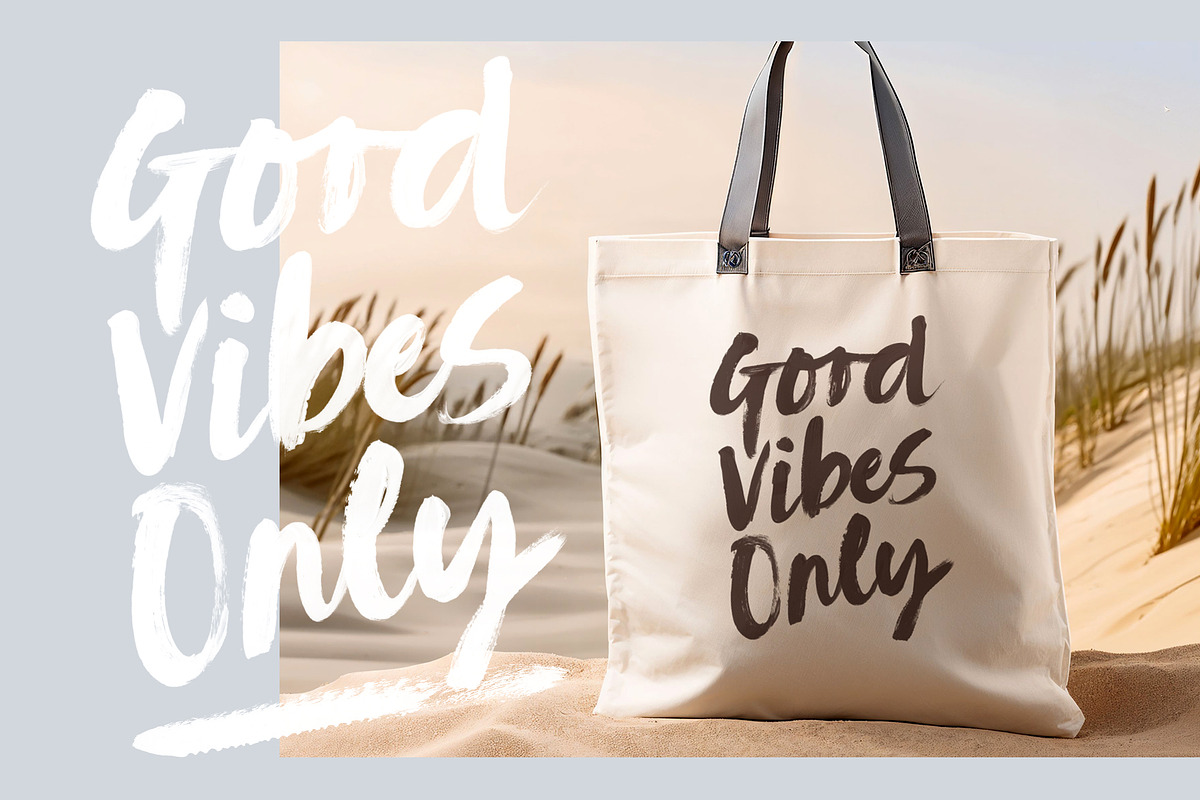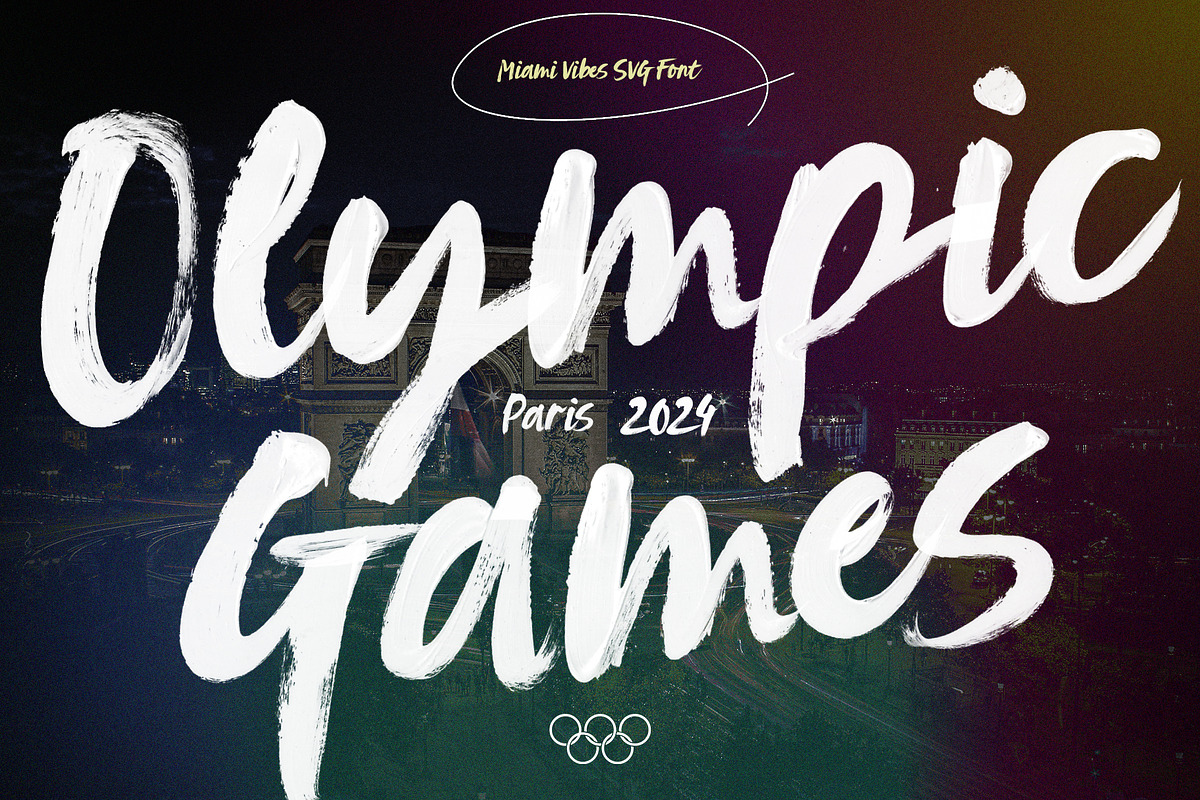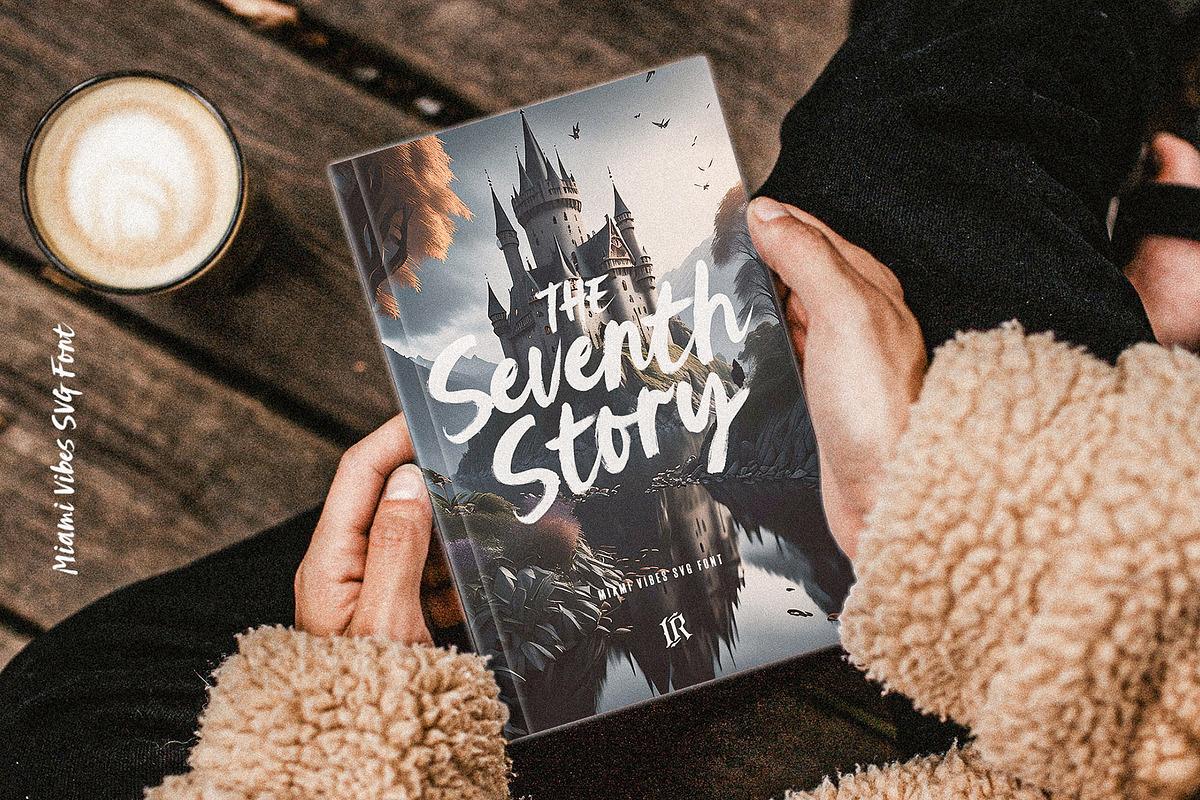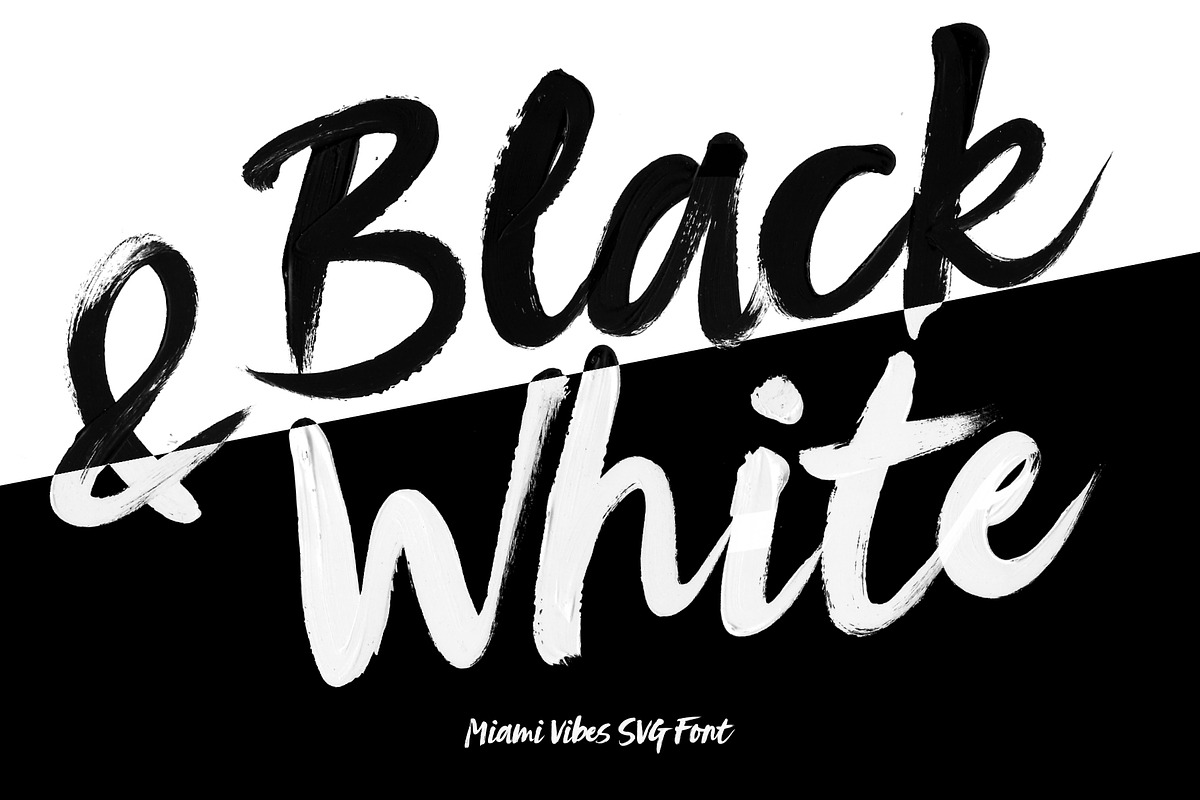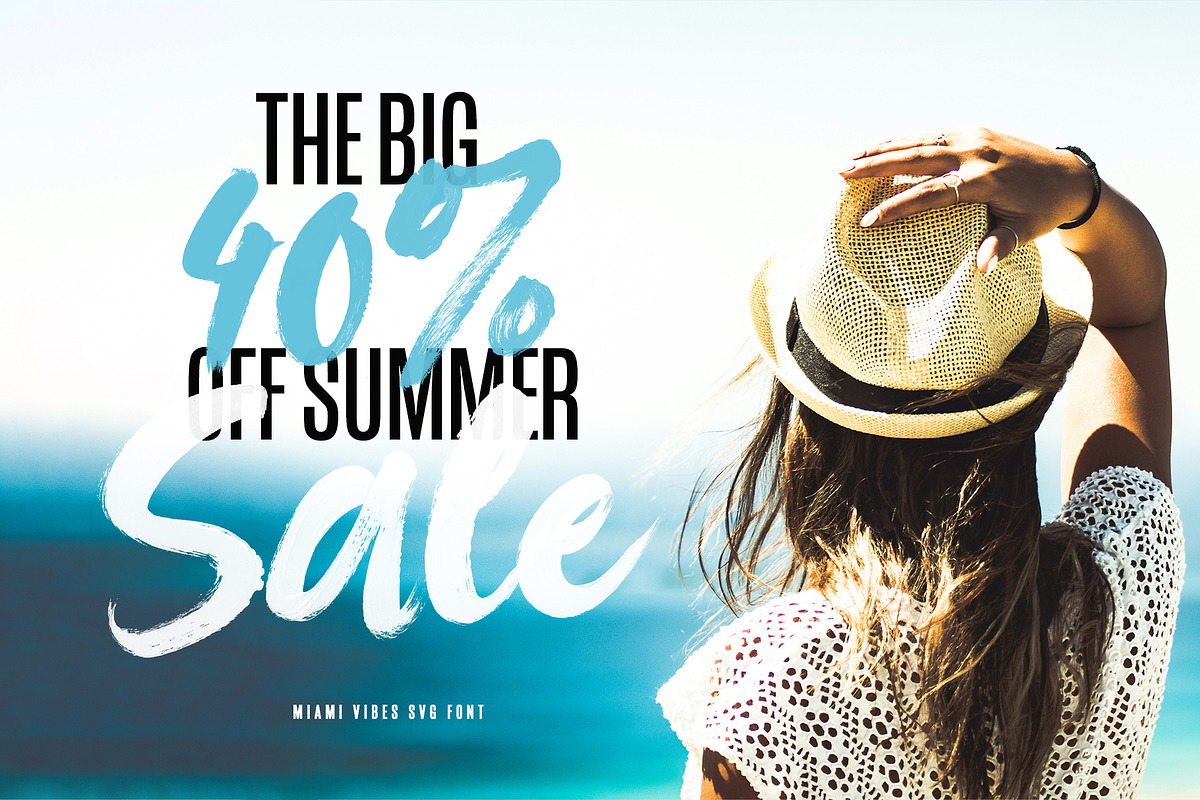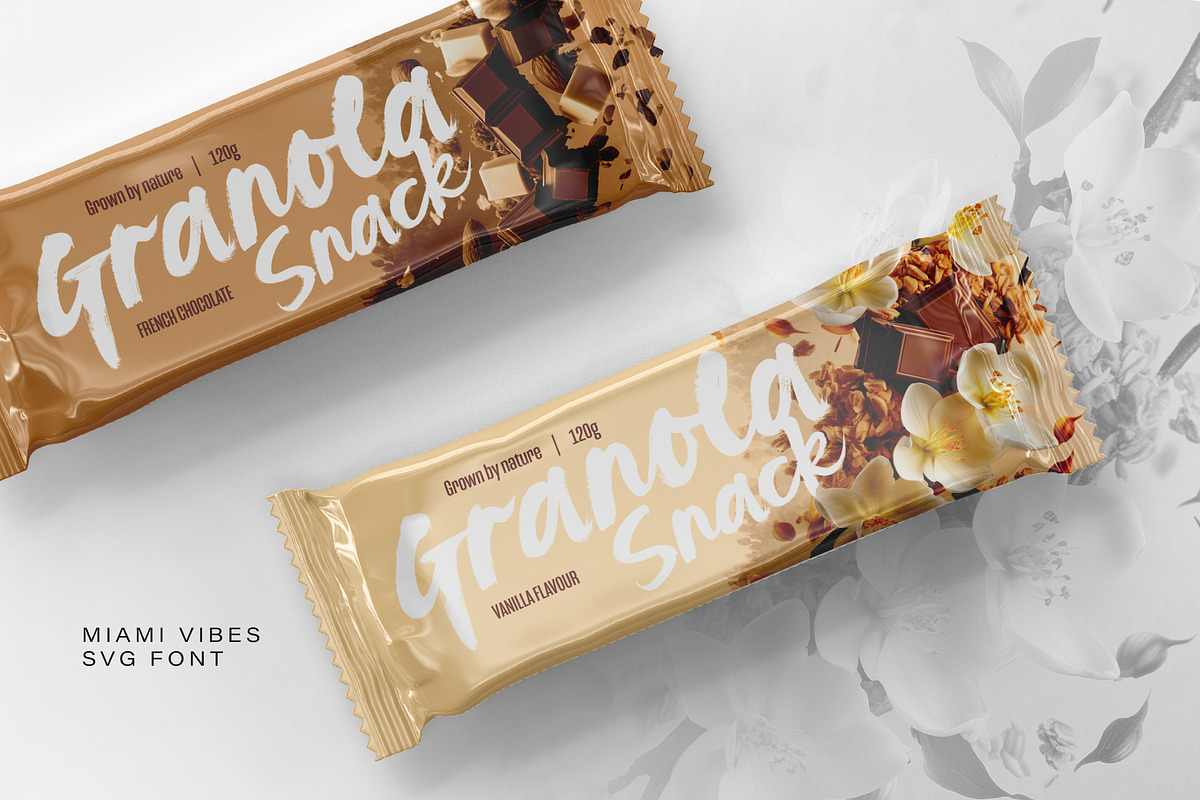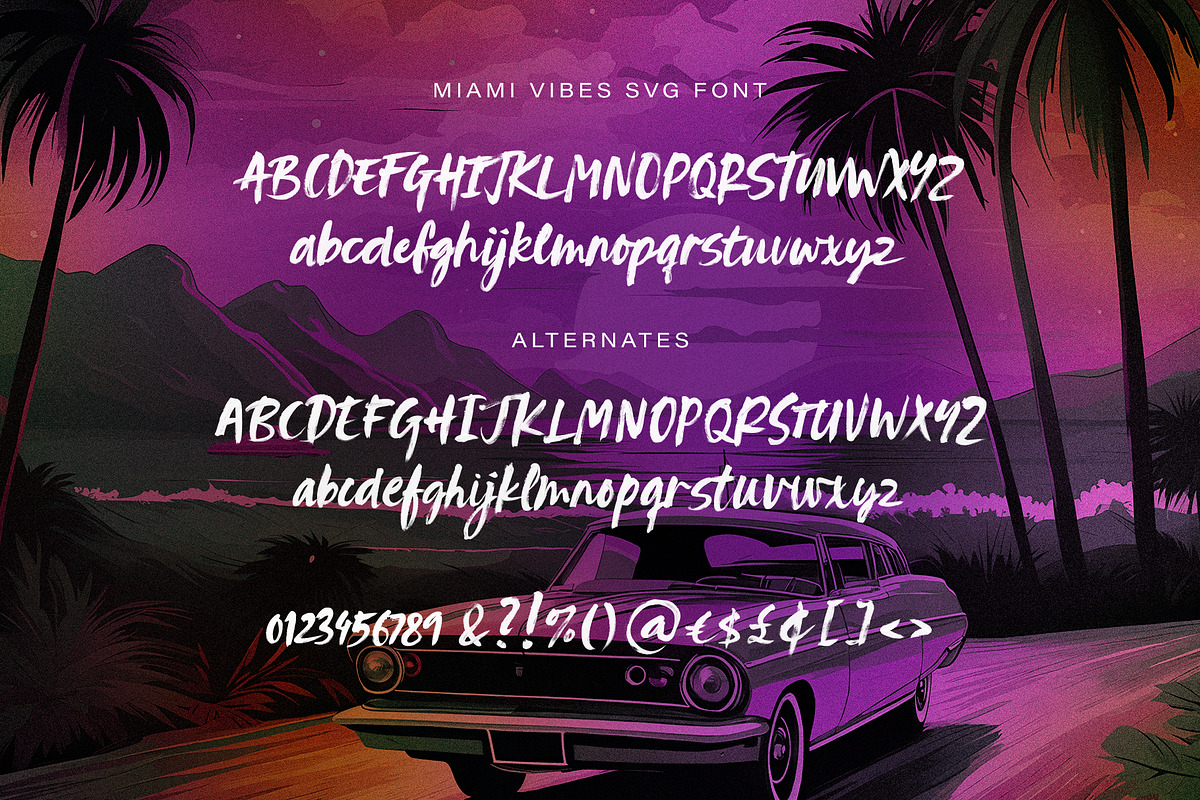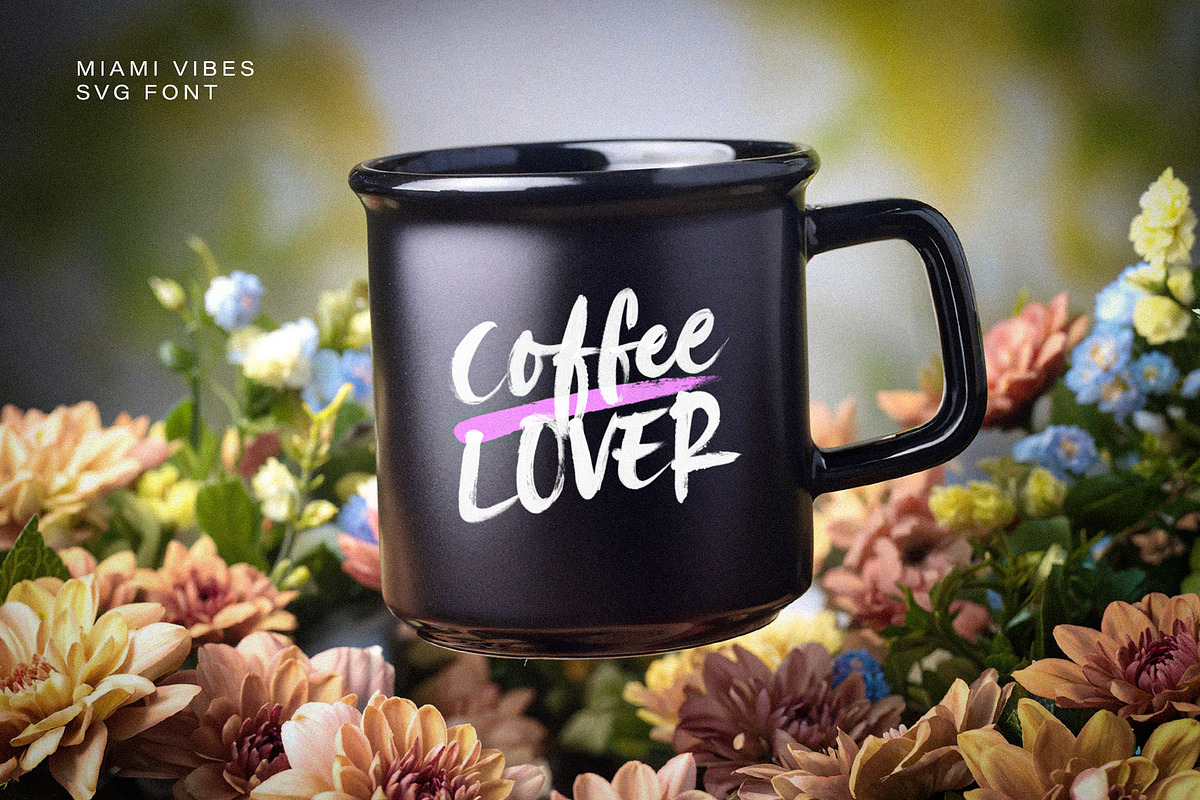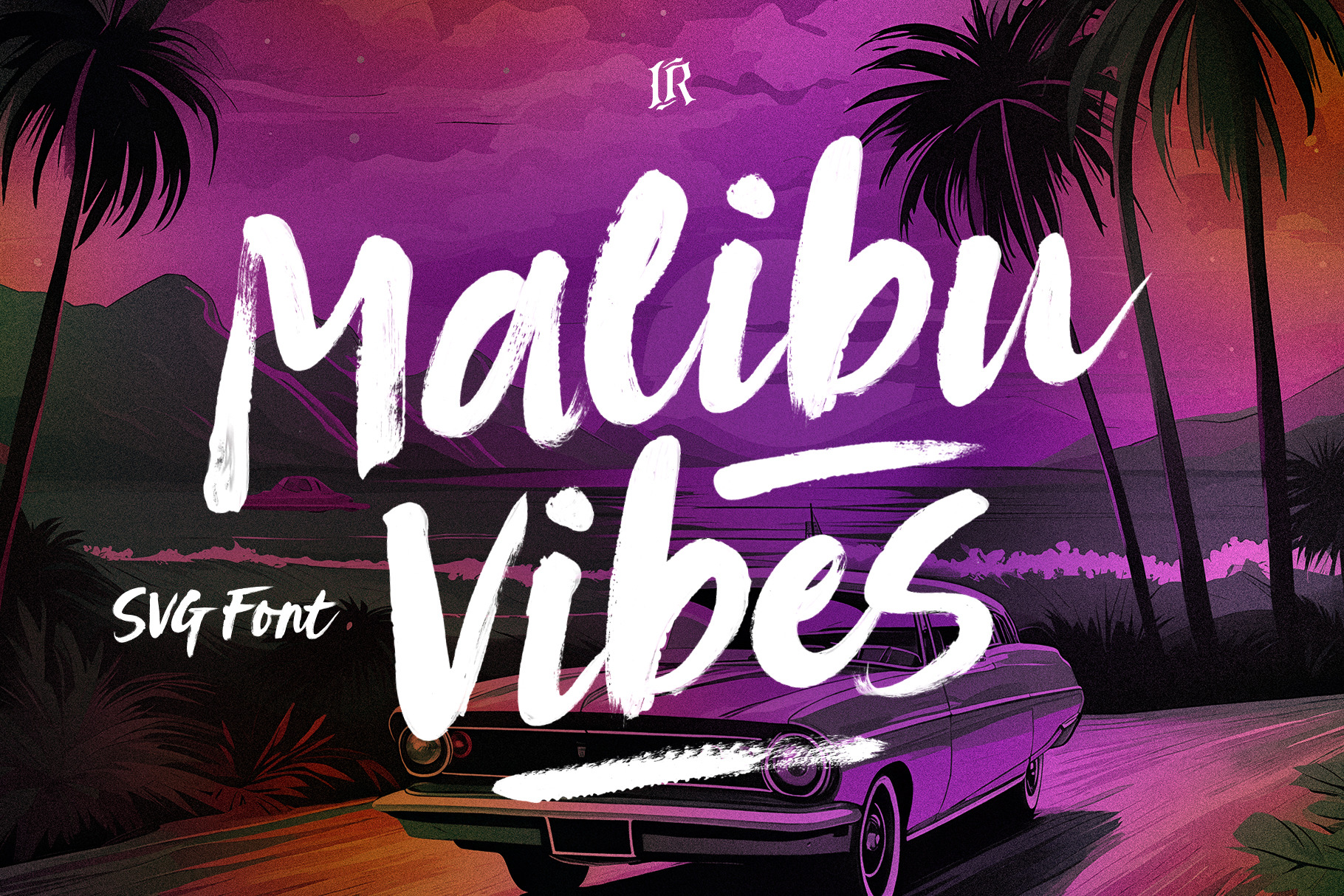
Malibu Vibes SVG Font
Malibu Vibes SVG Font preserves all the high definition detail of the original handwritten letters. Using OpenType-SVG technology it truly looks realistic. The OpenType-SVG format requires Photoshop CC 2017 or Illustrator CC 2018 (or newer). Regular OTF format is also included.